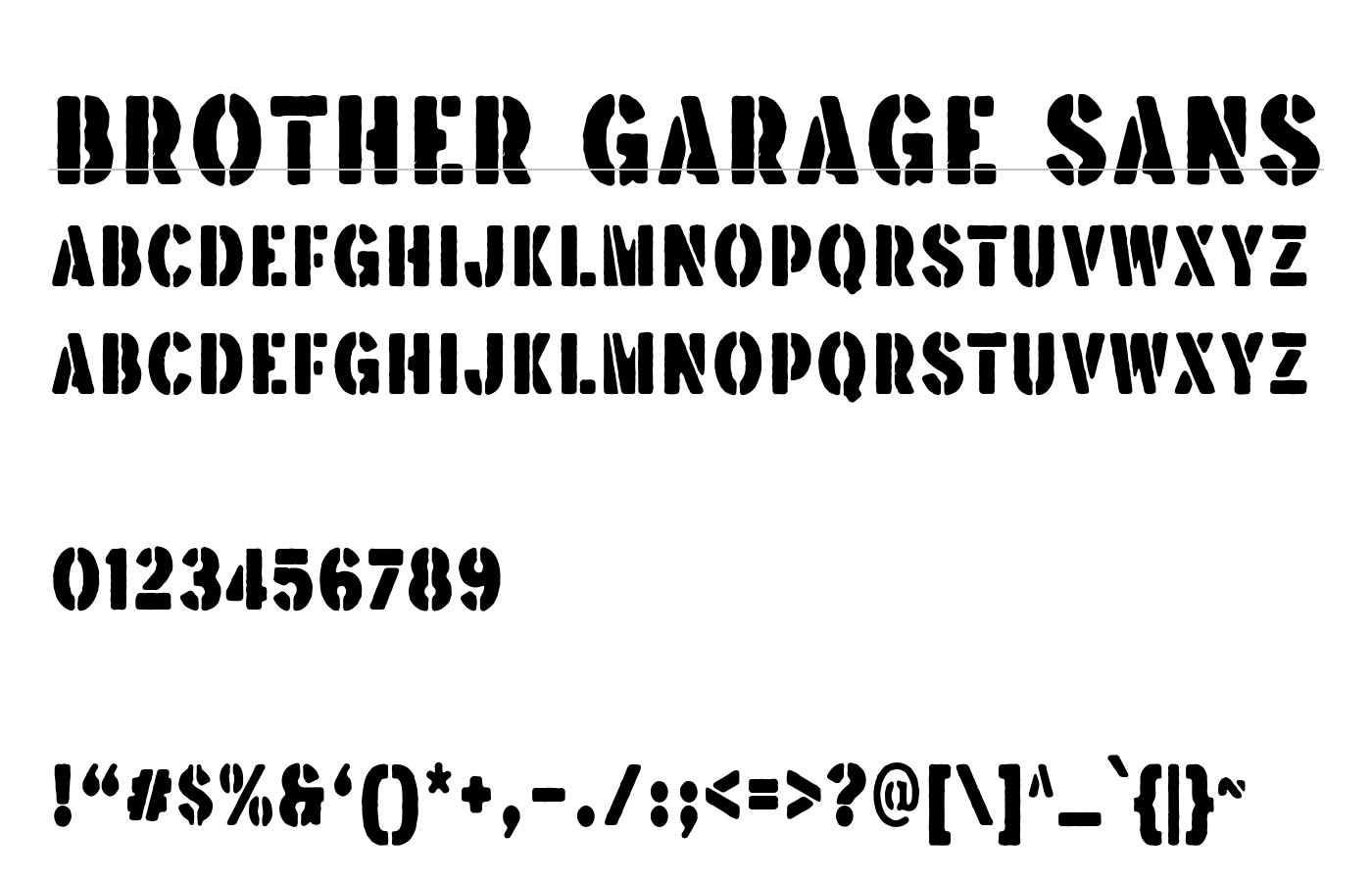
Brother Garage Sans is a bold, stencil-inspired sans serif font characterized by its solid, industrial appearance and thick, evenly weighted strokes with rough-cut edges. Its strong, condensed letterforms create a vintage, utilitarian feel that works well for designs seeking a rugged, masculine vibe, perfect for branding, packaging, and headline use in projects wanting to convey strength and durability. This font’s distinctive stencil breaks add a dynamic touch while maintaining readability, making it ideal for impactful, attention-grabbing visuals.
Brother Garage Sans Font
About Brother Garage Sans Font